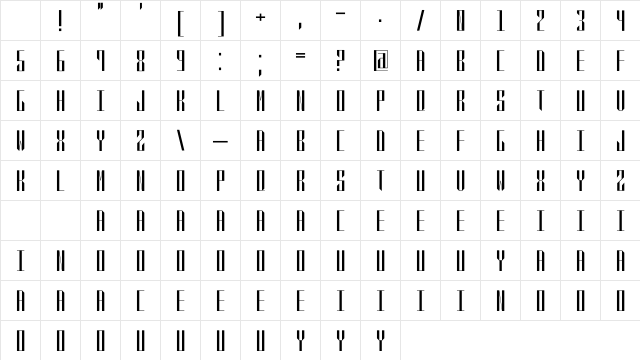
Complete QVR Sharp Display Regular glyph index. Displaying only characters natively supported by QVR Sharp Display Regular font.
QVR Sharp Display is built around its visual character rather than neutral utility - its distinctive forms are designed to make an impression at display sizes.
Font Pairing: Pair with a clean neutral sans-serif for body copy to let QVR Sharp Display's character lead without overwhelming the composition.
Pro Tip: Use QVR Sharp Display exclusively at display sizes - it was designed to be seen, not read at length. Let a neutral companion handle body copy.